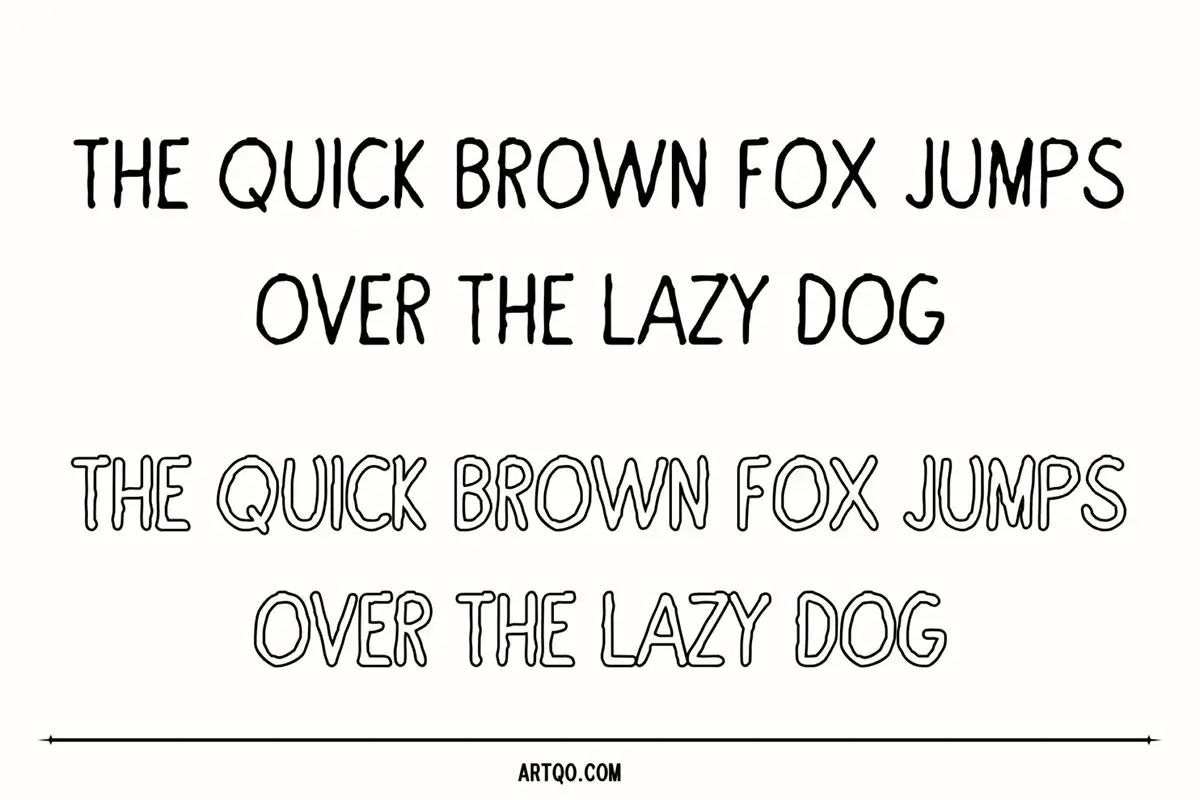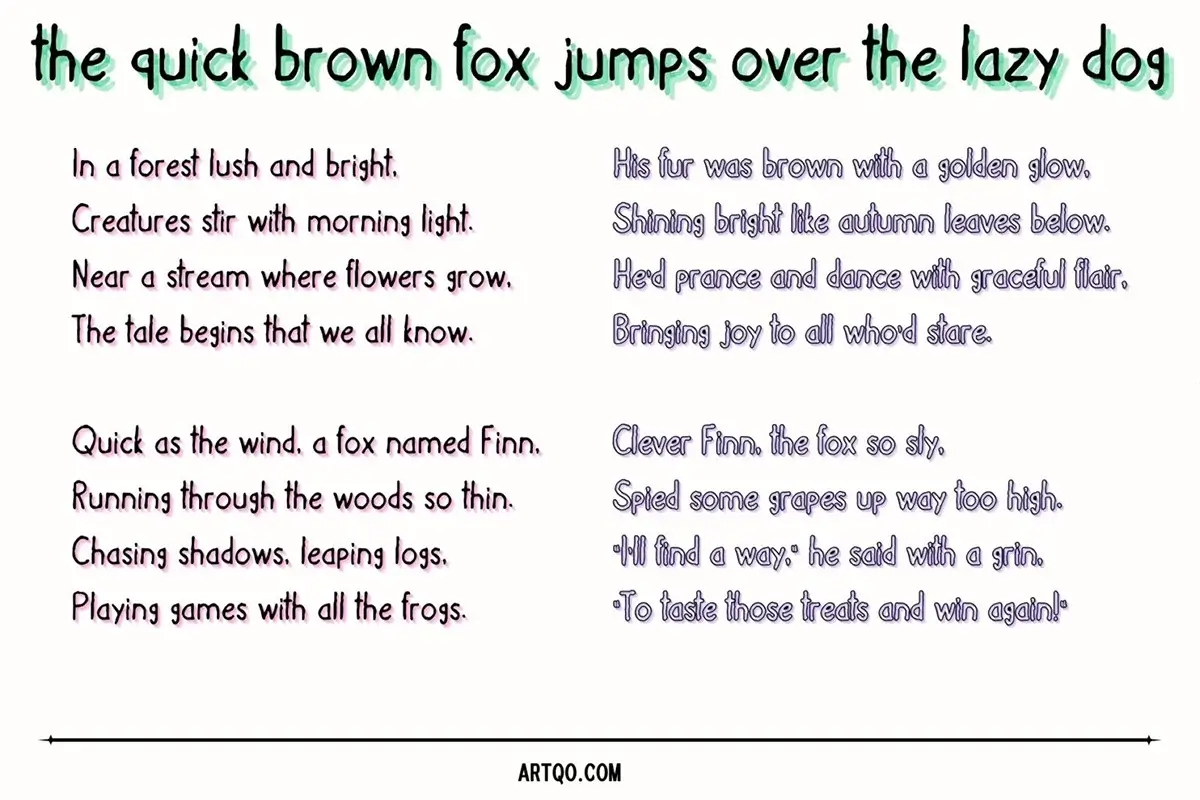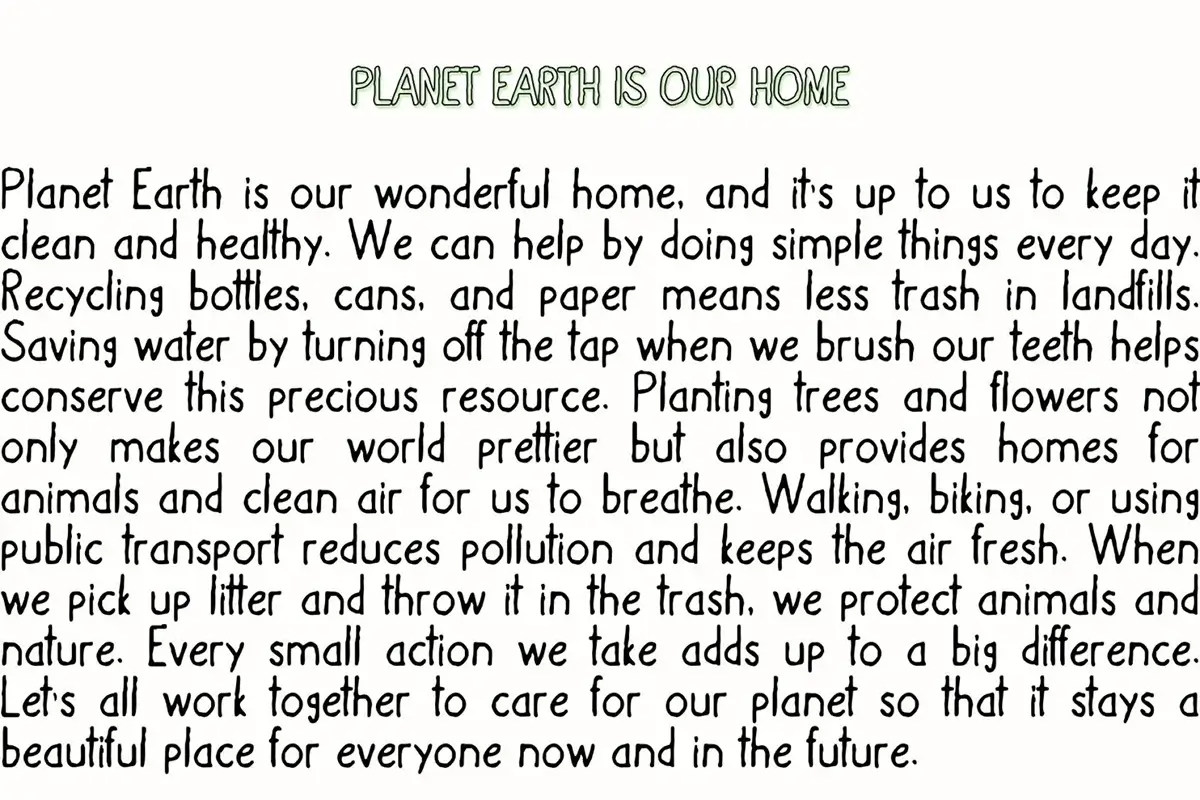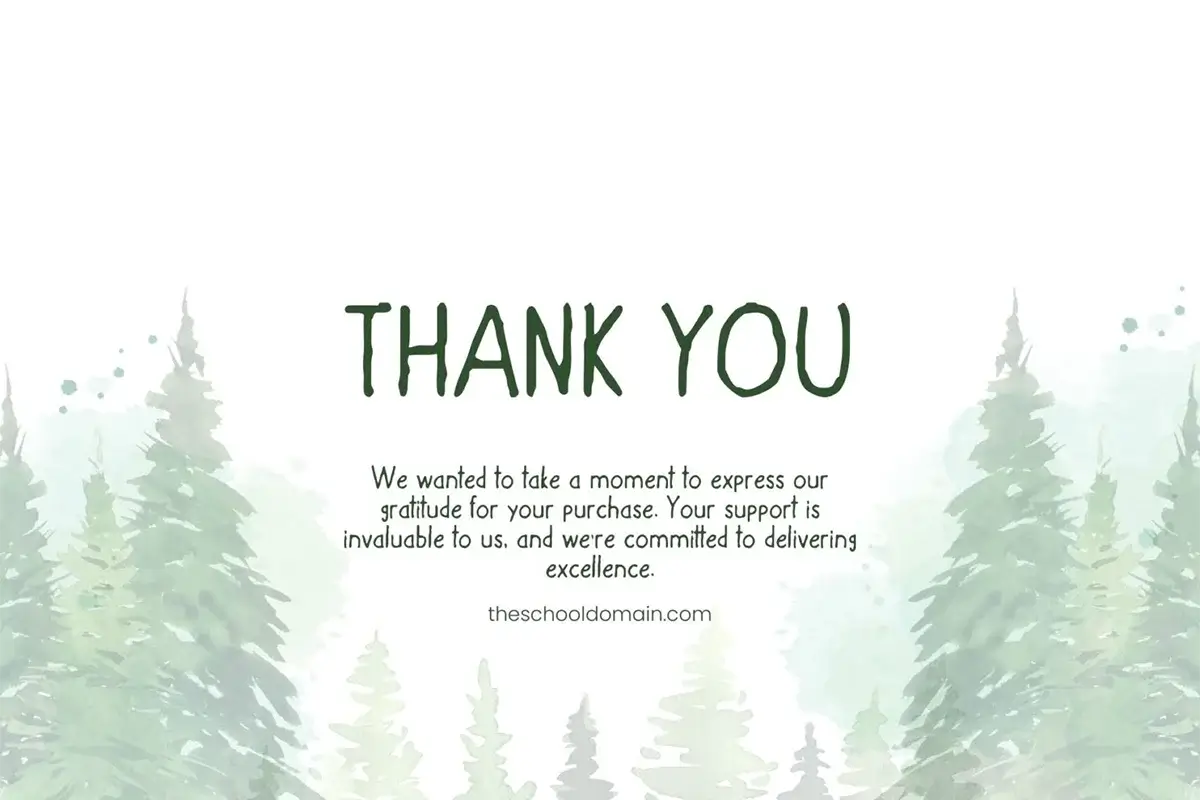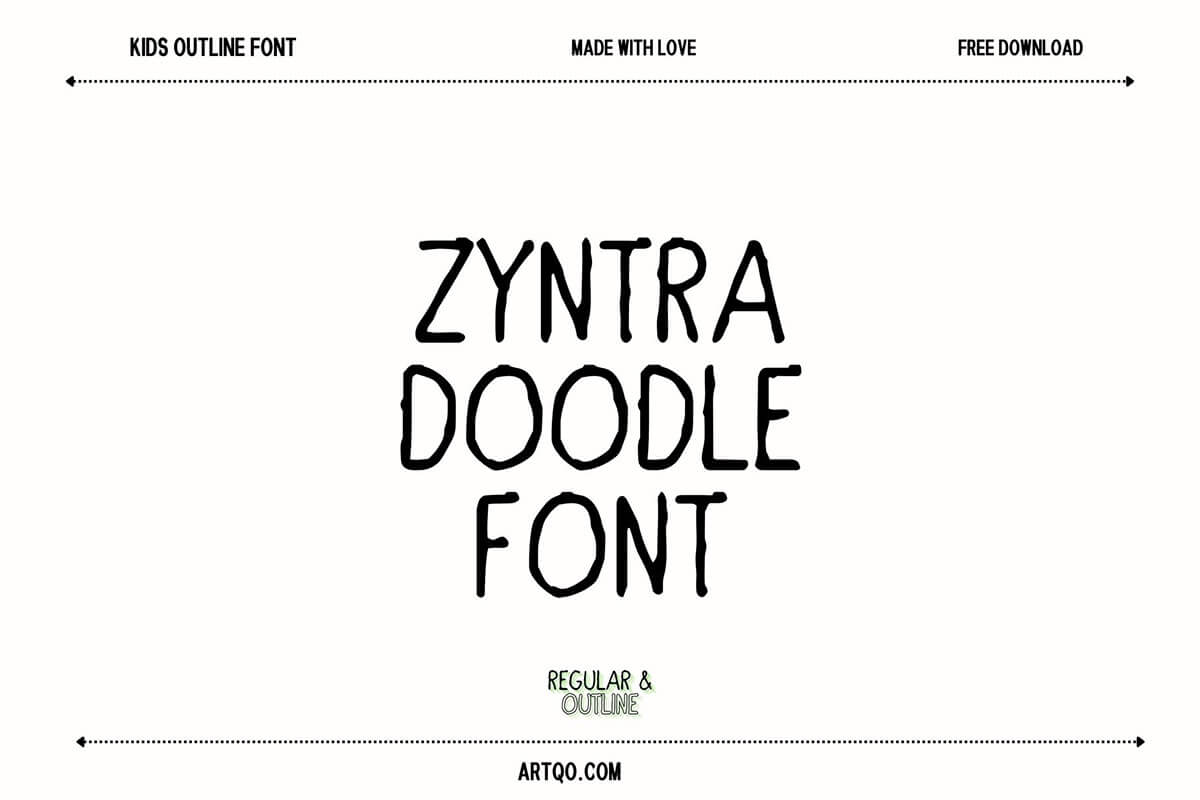
Zyntra Doodle Font – Regular & Outline
Zyntra Doodle Font is a playful and creative typeface designed with kids in mind. This font features a hand-drawn, doodle-like appearance, making it perfect for children’s books, school projects, posters, and fun invitations.
Available in both regular and outline styles, Zyntra Doodle brings a cheerful and whimsical touch to any project. With its unique, kid-friendly design, this font is free to download and perfect for adding an element of fun to your typography.
Key Features:
- Funny Hand-drawn Look
- Uppercase & Lowercase Letters
- Numbers
- Easy to Read